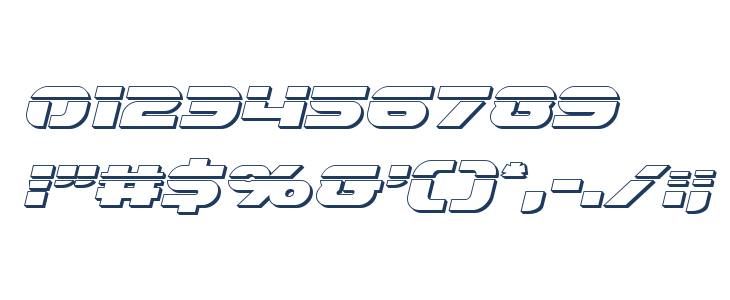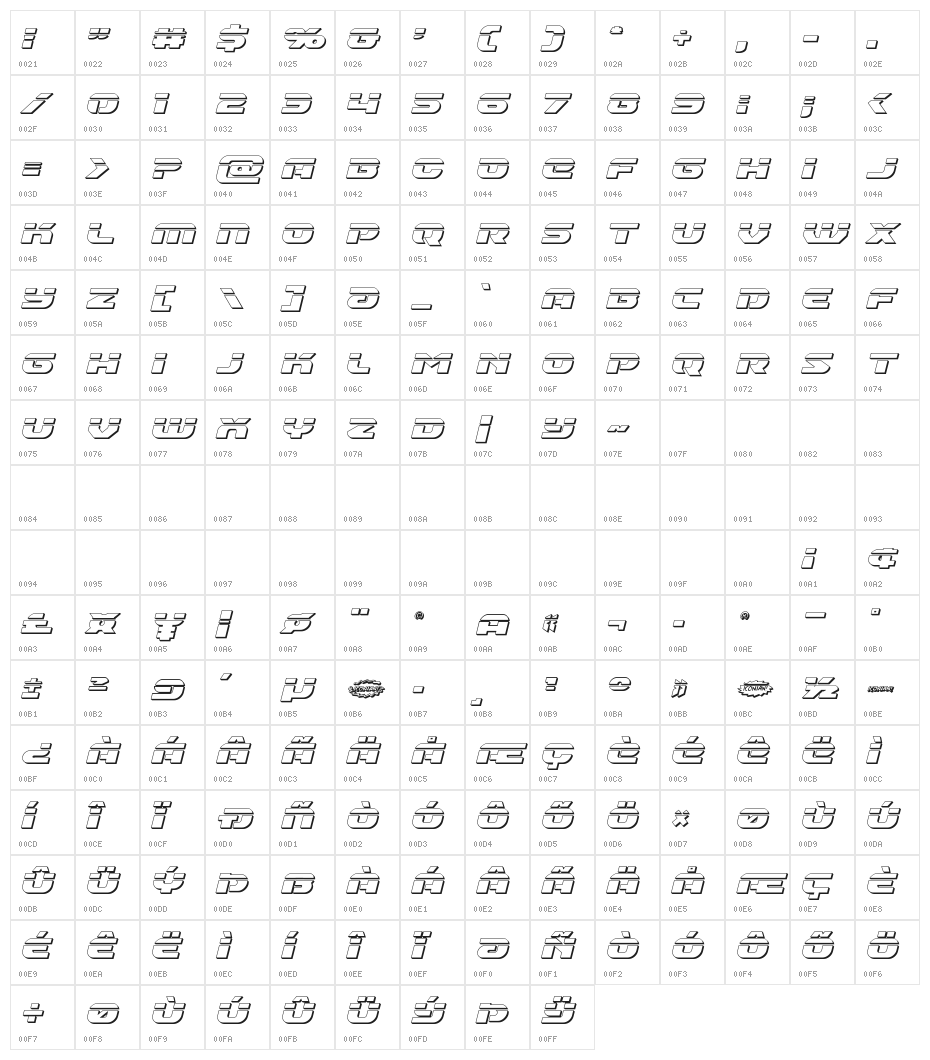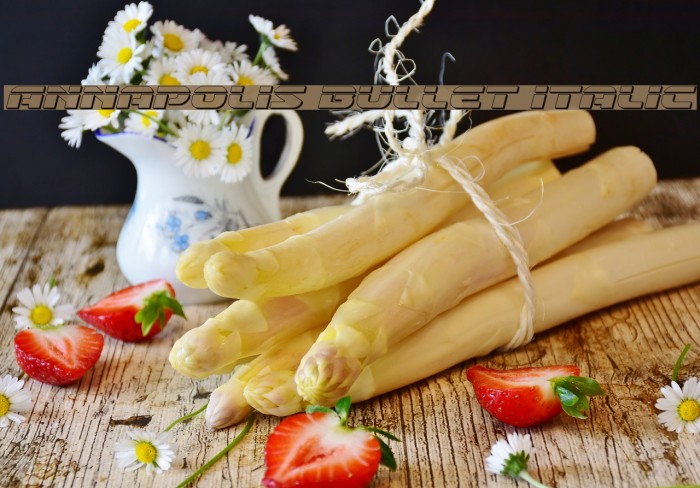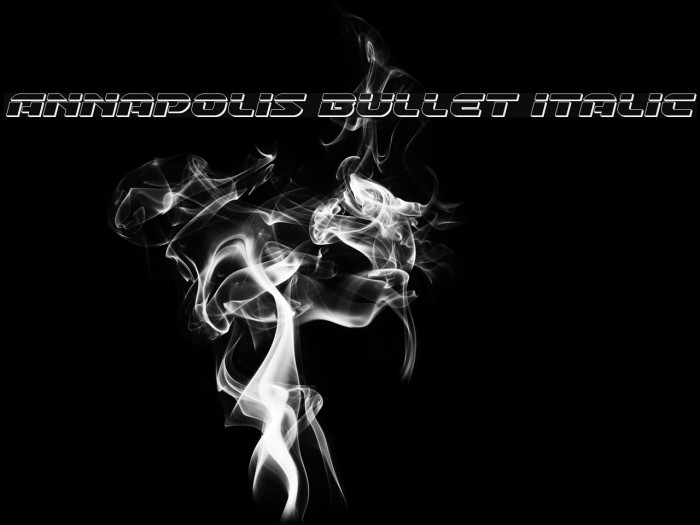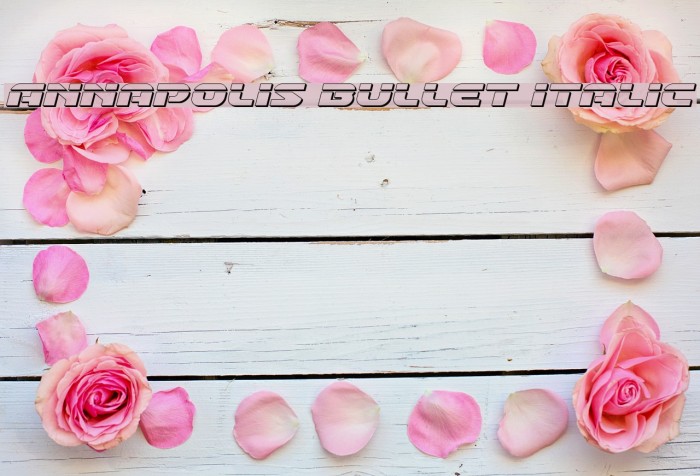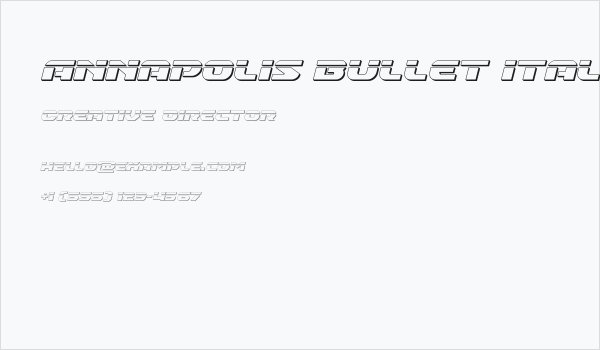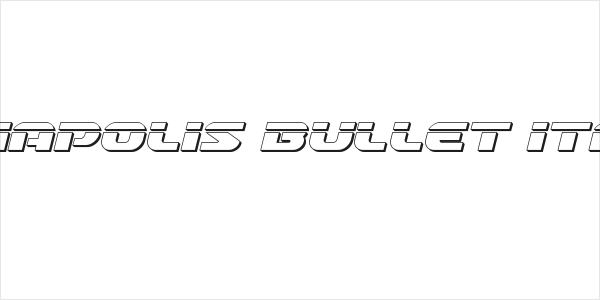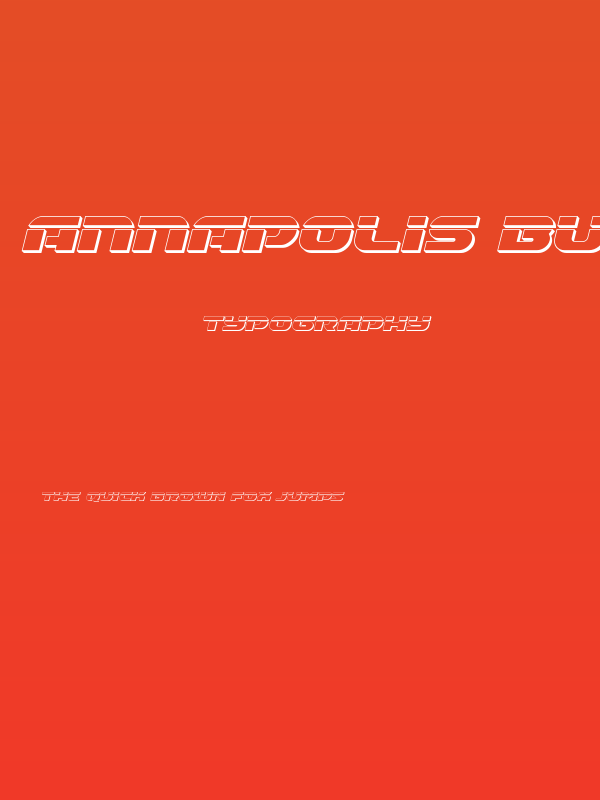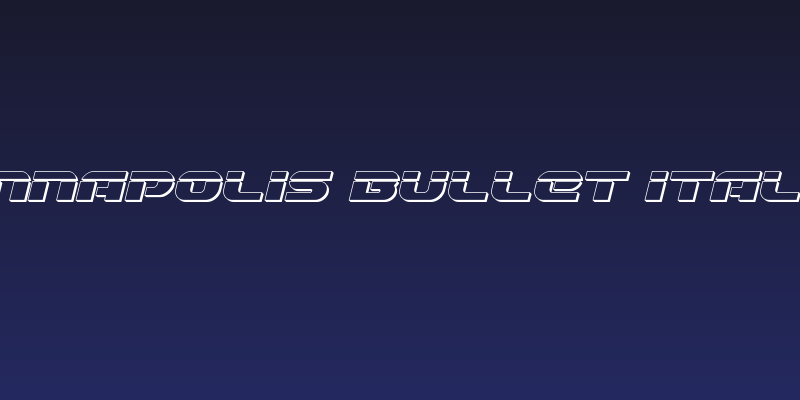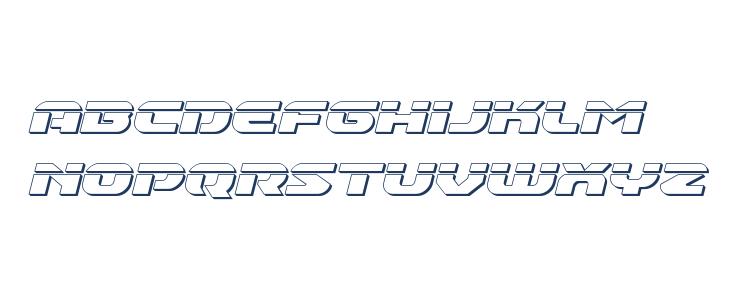
Annapolis Bullet Italic Font
Annapolis Bullet Italic Description
This font features a bold, italicized style with a futuristic and geometric design. Each character is outlined, creating a hollow effect that adds depth and dimension. The letters are slightly slanted, enhancing the italicized appearance. The font's structure is clean and precise, with sharp angles and straight lines that give it a modern and technical feel. The spacing between characters is tight, contributing to a compact and cohesive look. This font is particularly striking in its uppercase form, with consistent stroke widths that maintain a uniform appearance across all characters. The numerals and special characters follow the same stylistic approach, ensuring a harmonious overall design.
| Proposed Projects | Ideal for technology branding, sci-fi themed projects, video game titles, and modern advertising campaigns. |